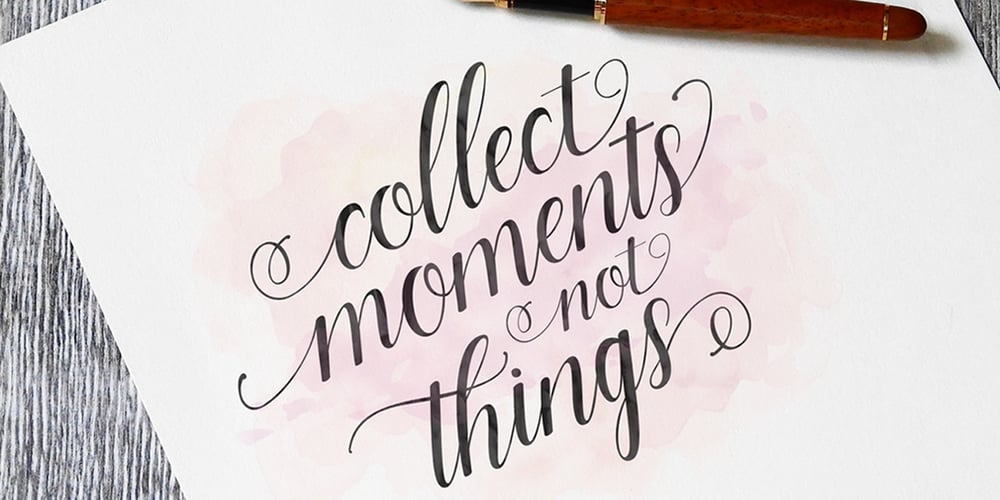
Marioline
Marioline font
Marioline Font Family was designed by Teuku Zulfikar and published by Josstype. Marioline contains 2 styles and family package options. Marioline Script is a handwritten typeface with classical root, a beautiful formal script and elegant touch. It works perfect in the world of weddings, logos, greeting cards, branding, print ads, quotes, signage, magazines etc. Marioline features 500+ glyphs and 315 alternate characters. It includes initial and terminal letters, alternates, swashes, ligatures and multiple language support. To enable the OpenType Stylistic alternates, you need a program that supports OpenType features such as Adobe Illustrator CS, Adobe Indesign & CorelDraw X6-X7, Microsoft Word 2010 or later versions. How to access all alternative characters: http://youtu.be/iptSFA7feQ0nn http://cuttingforbusiness.com/2016/01/28/how-to-use-opentype-fonts-in-silhouette-studio-or-cricut- design-space/ https://www.youtube.com/watch?v=Go9vacoYmBw Thank you for your purchase! and please let me know if you have any questions. via email: joelpopon@gmail.com